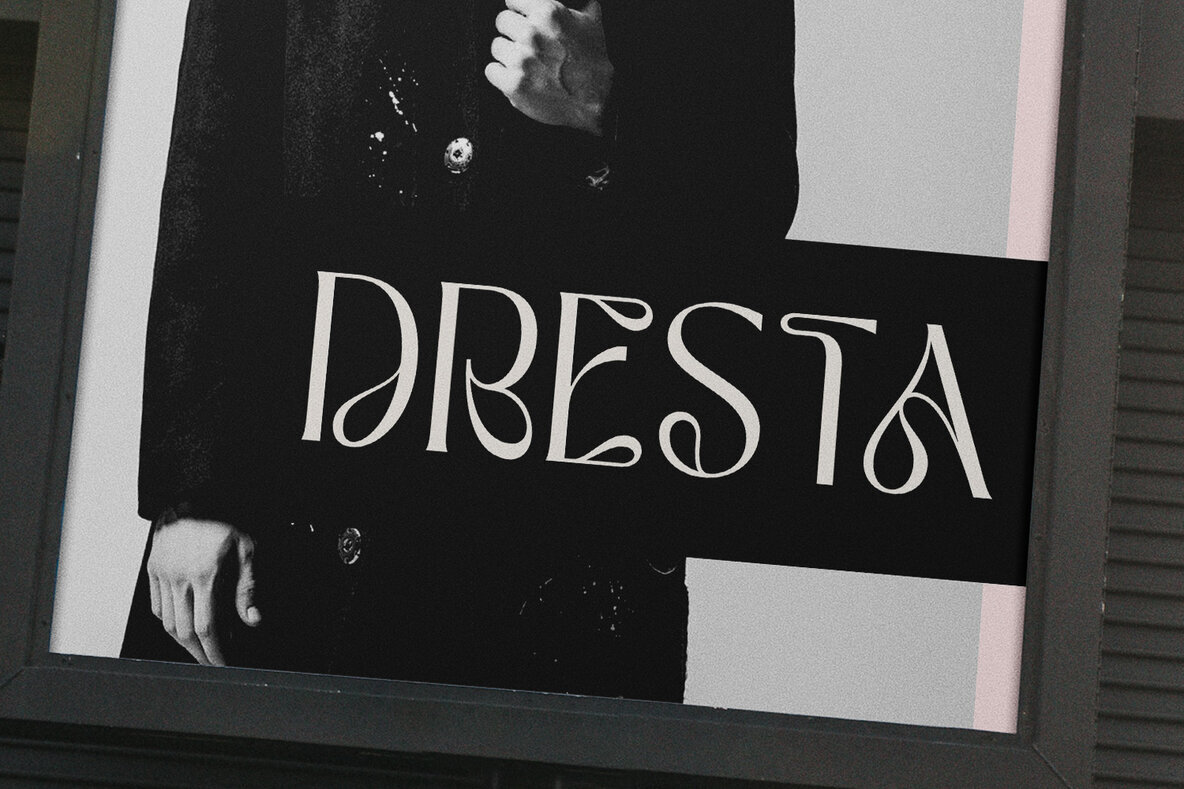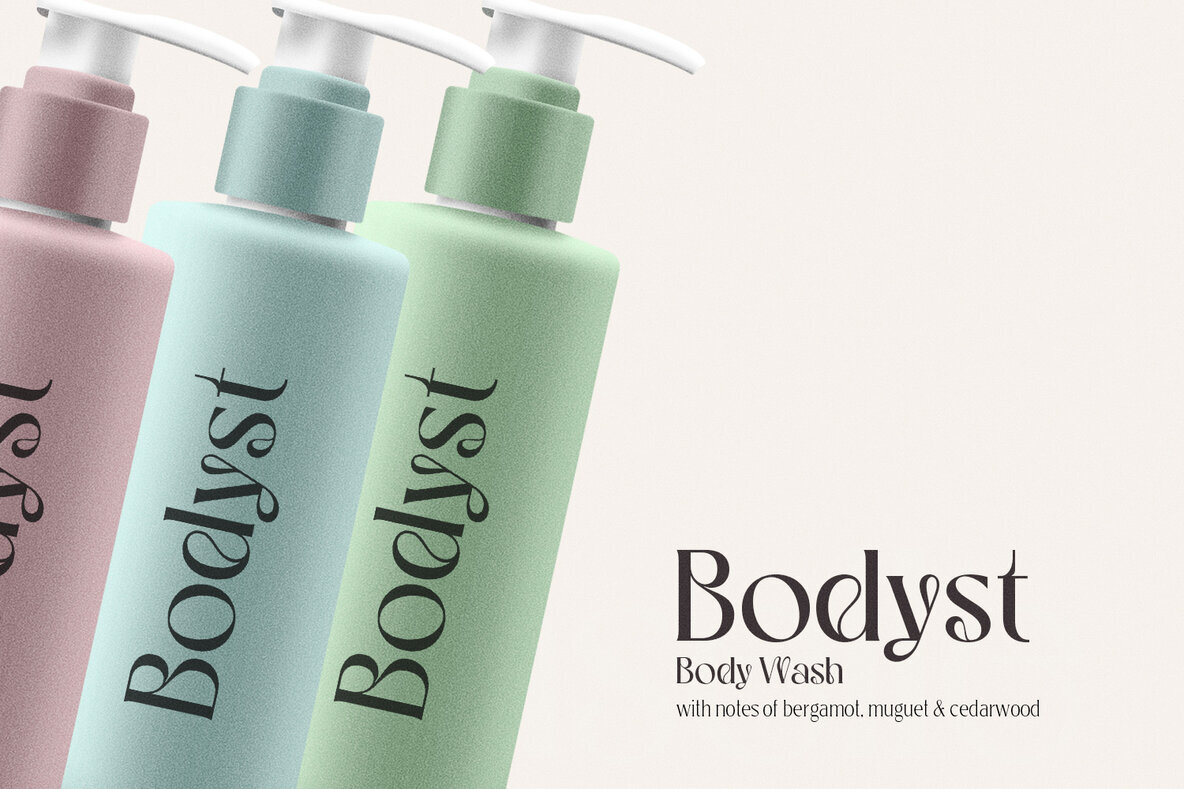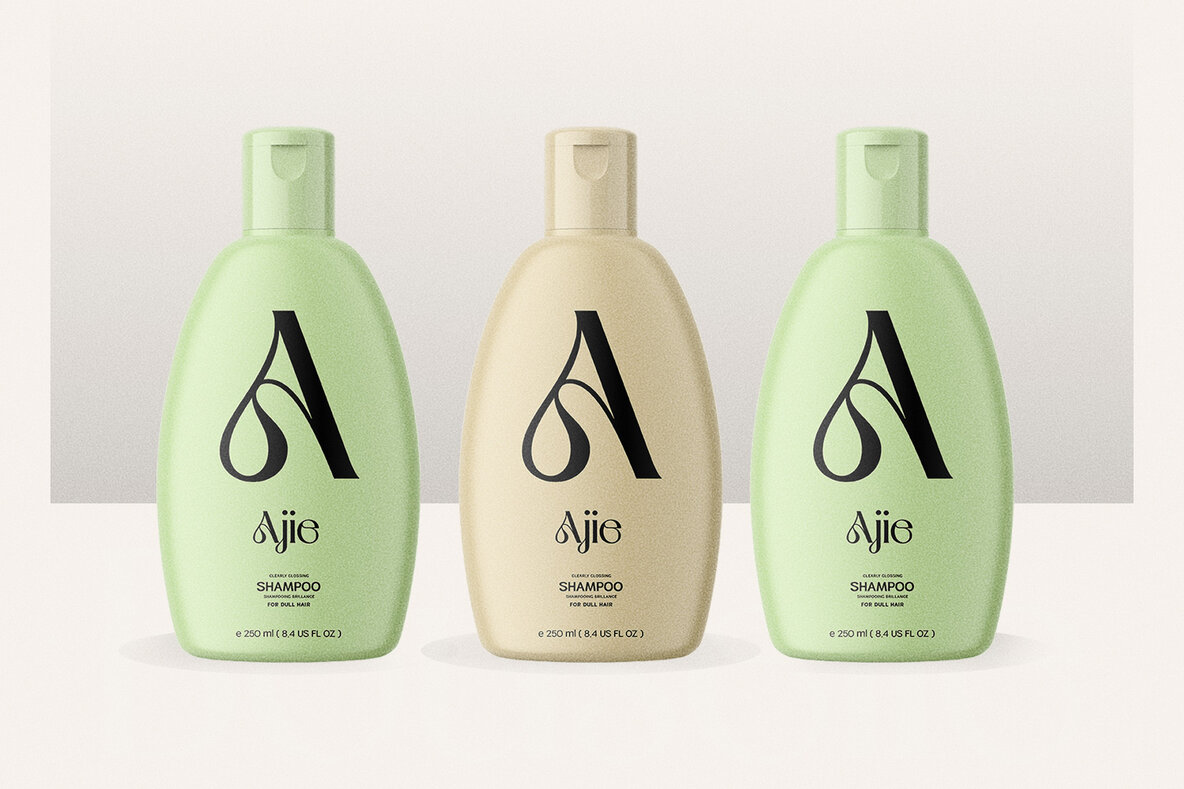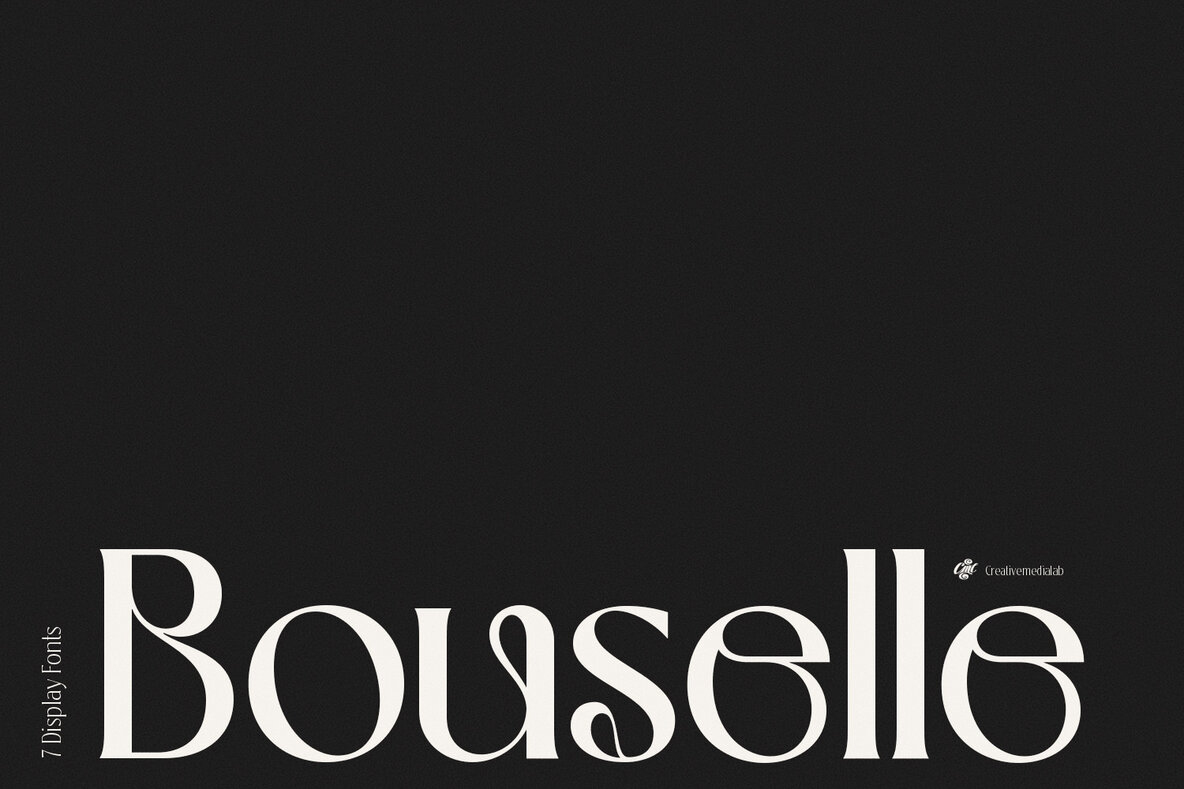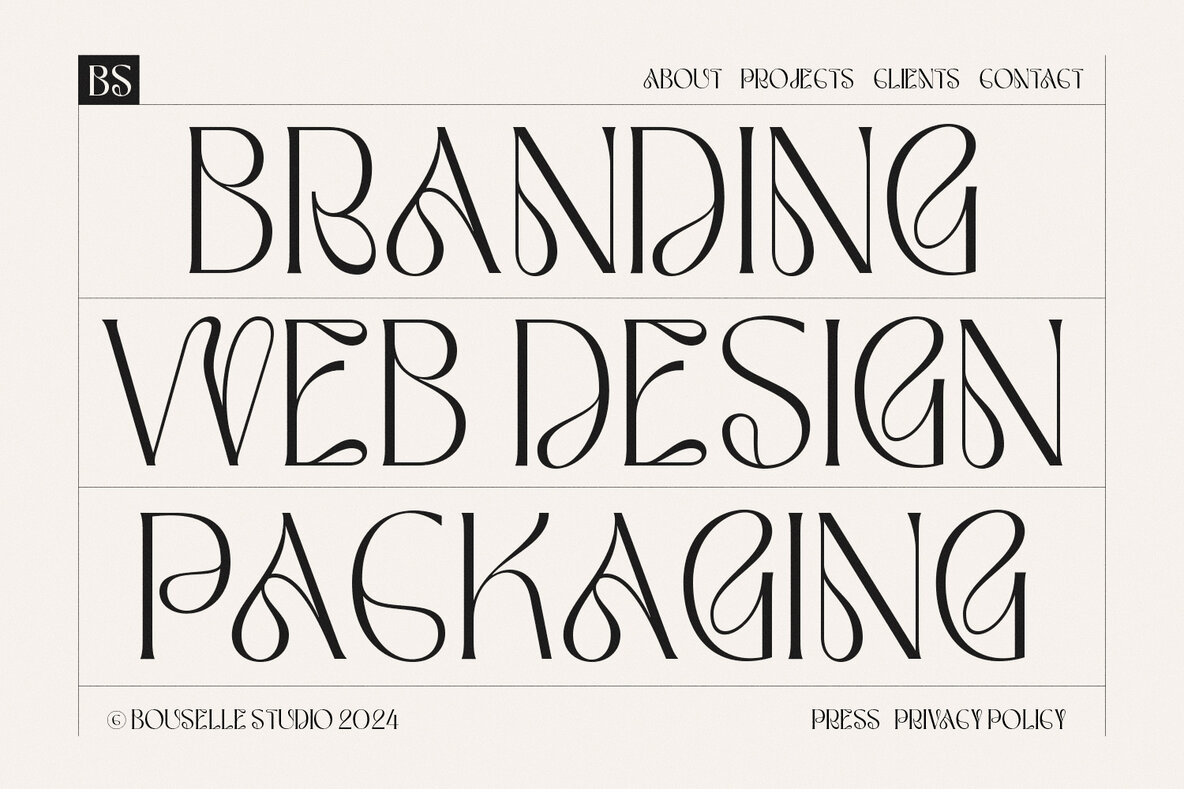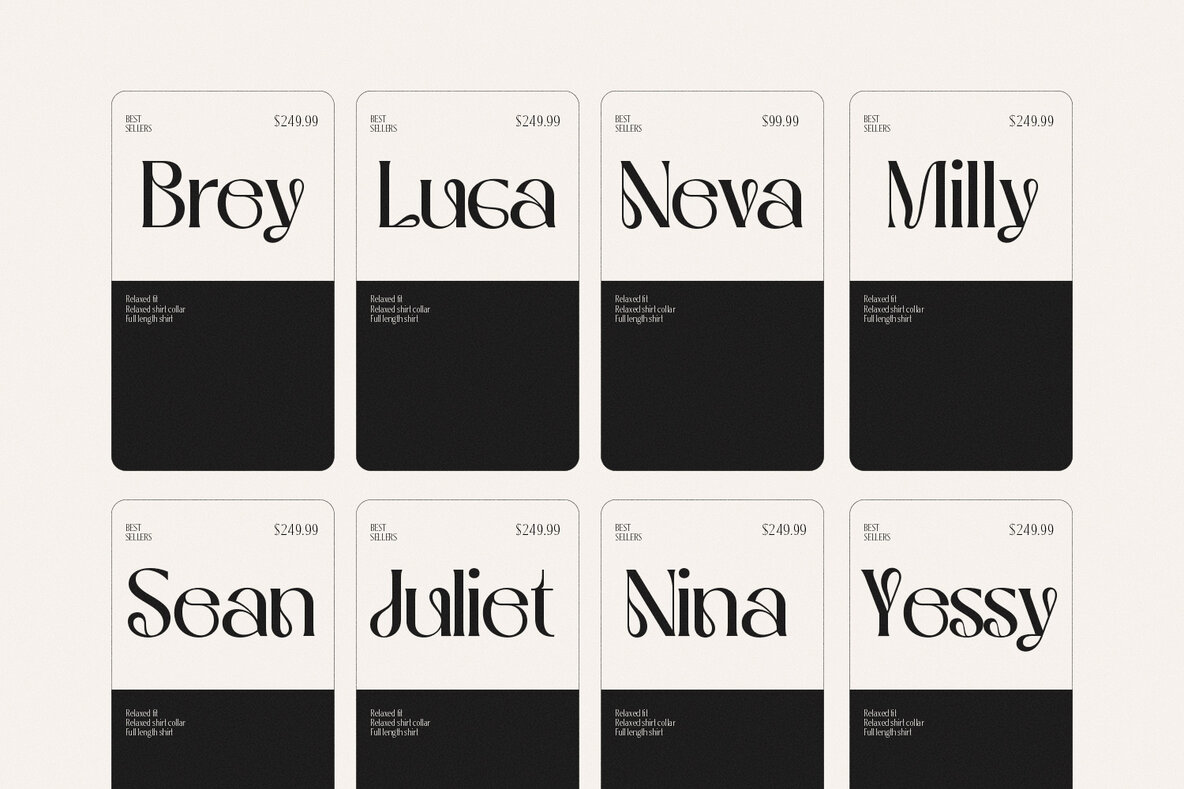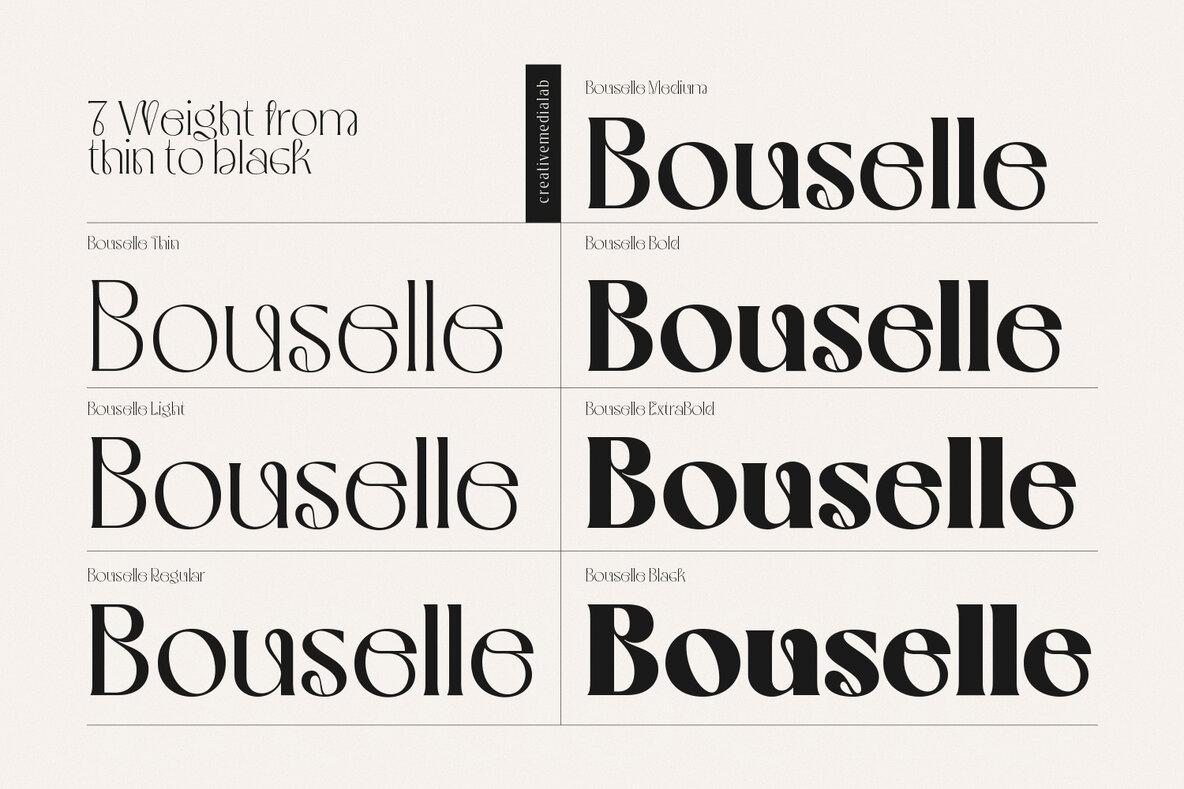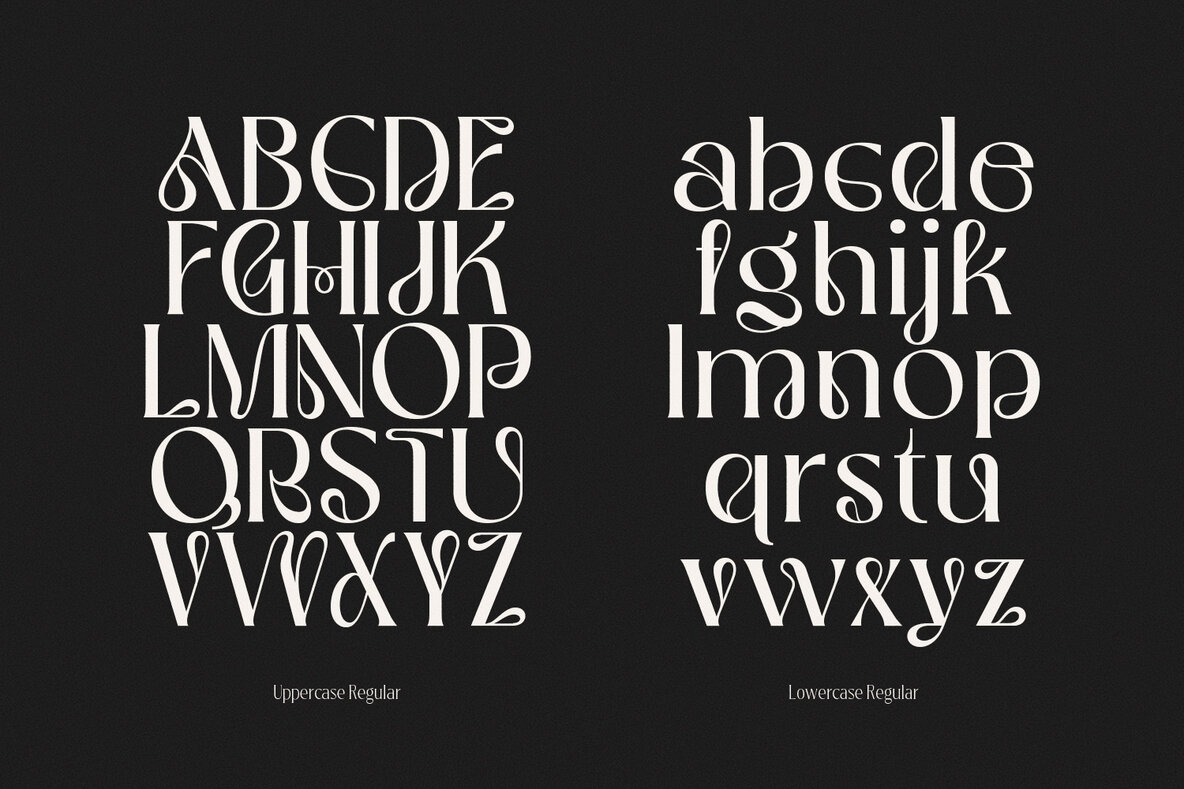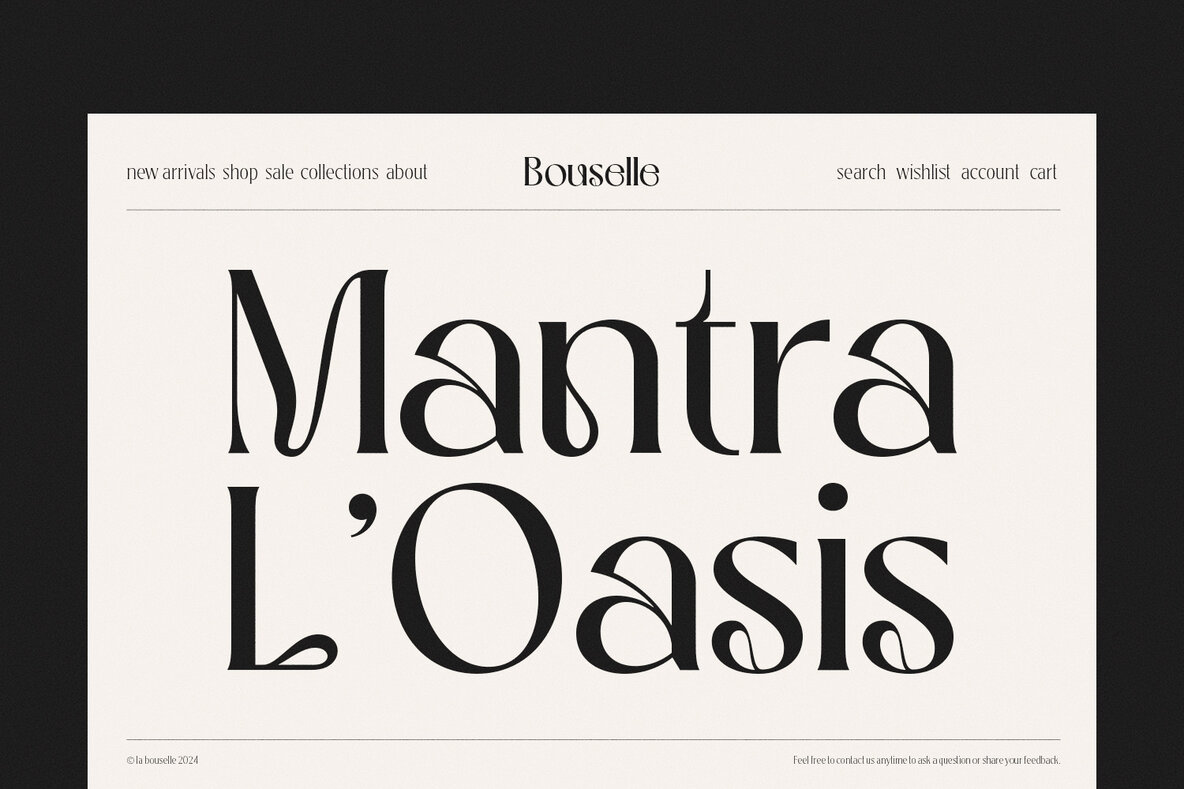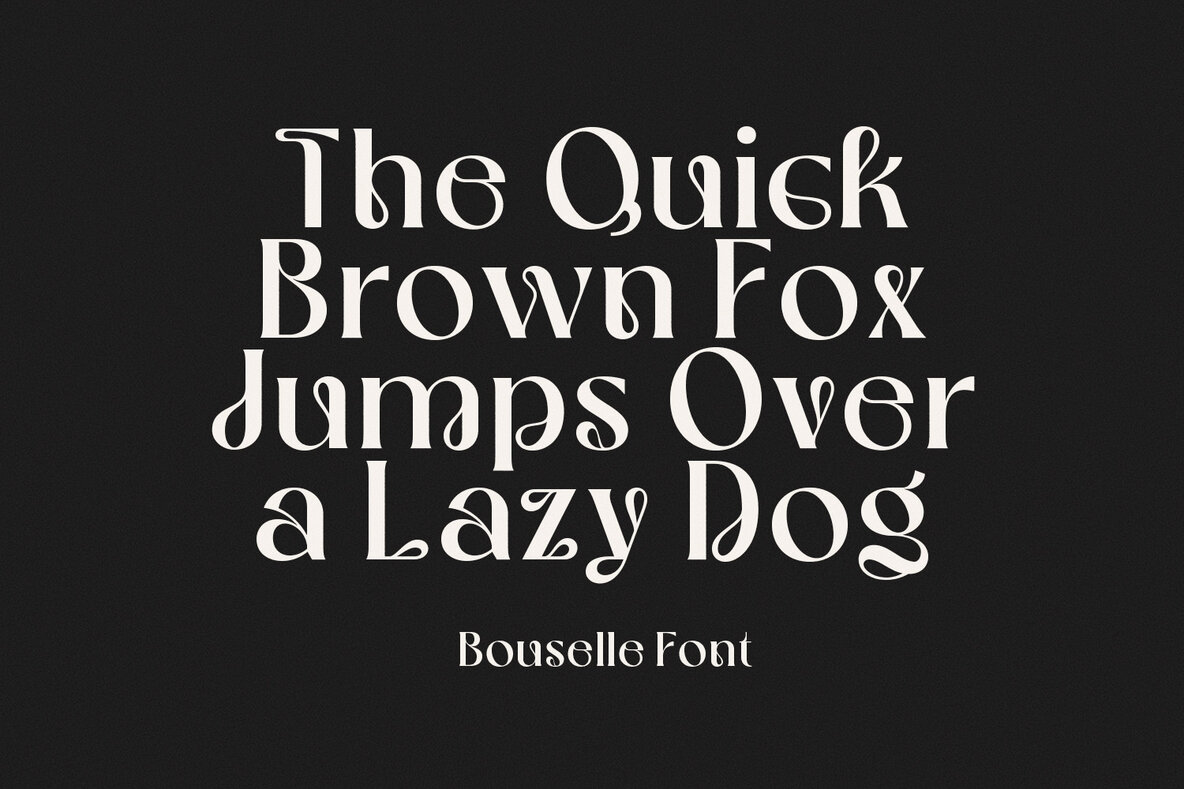
Bouselle Font
Introducing Bouselle, a unique serif font inspired by the 70s psychedelic era. This font highlights flexible curved lines in its characters, merging the classic feel of the 70s with the elegance of serif fonts. Bouselle brings a modern touch to the timeless serif family, making it an ideal choice for designers seeking a blend of retro charm and contemporary elegance.